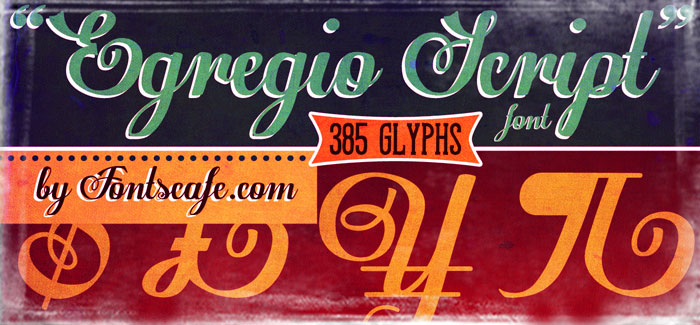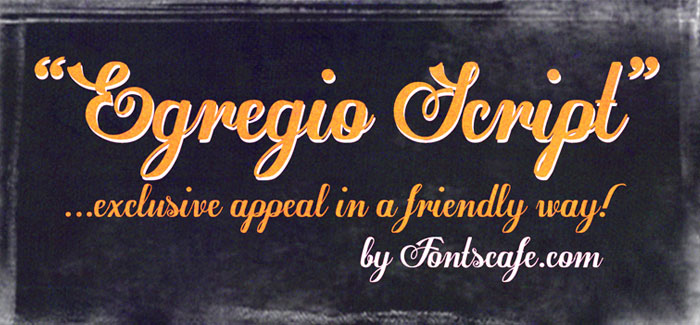
Egregio Script font
Egregio Script font is a typeface that can pretty much fit the bill when you want to send out an exclusive appeal but yet not overly formal. It is styled with fonts that cry out ‘eliteness’ and exclusivity, but without the part where it becomes so exclusive and classy that it goes way over people’s heads! The ‘Egregio’ can still connect on a very personal, almost friendly level with your audience while it remains in a class of its very own!